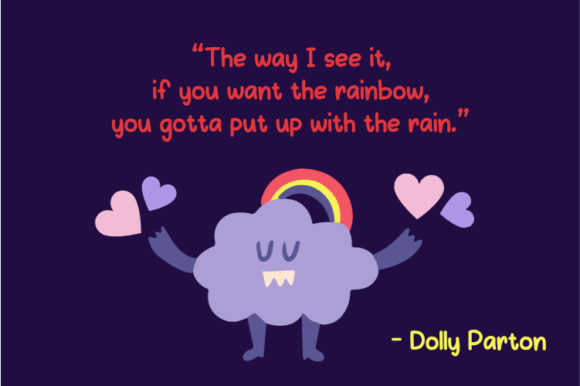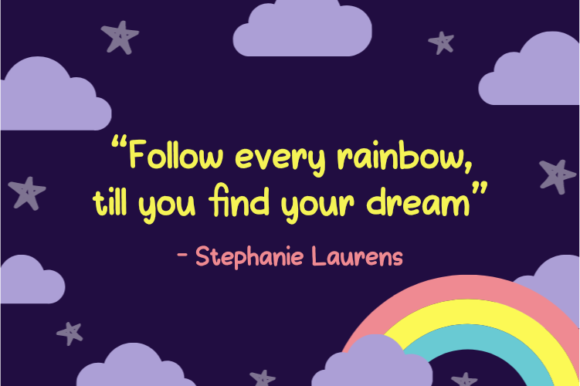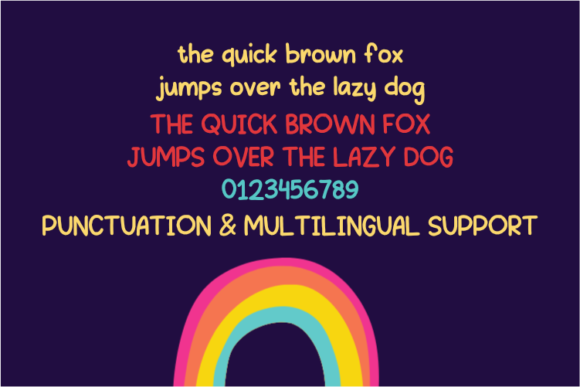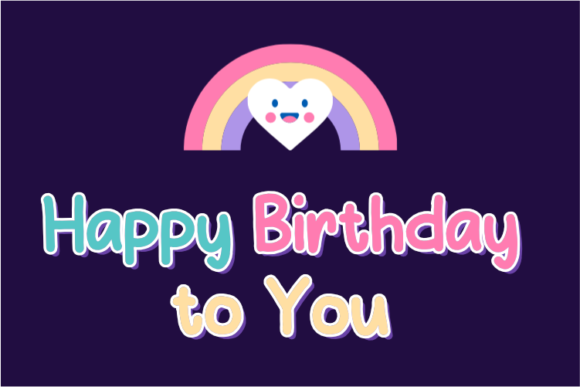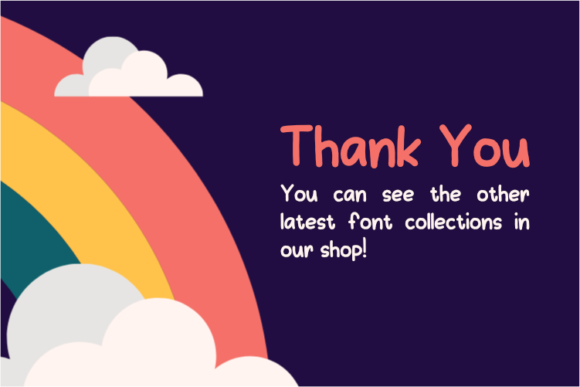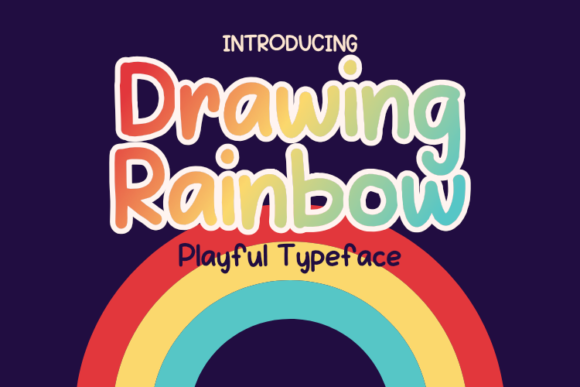
Introducing Drawing Rainbow: A Vibrant and Playful Display Font
Are you looking for a font that can add a splash of fun and joy to your designs? Look no further than Drawing Rainbow, a delightful display font that’s perfect for children’s themed projects. This charming font is sure to bring a smile to your audience’s faces, especially when paired with bright, bold colors.
What is Drawing Rainbow Font?
Drawing Rainbow is a unique and creative font that’s designed to evoke the whimsy and playfulness of childhood. With its bold, colorful letters, this font is ideal for designers and crafters who want to add a touch of magic to their work. Whether you’re creating a children’s book, a nursery decoration, or a fun craft project, Drawing Rainbow is the perfect choice.
Key Features of Drawing Rainbow Font
- Fun and playful design: Drawing Rainbow features bold, colorful letters that are sure to capture your audience’s attention.
- Perfect for children’s themed designs: This font is specifically designed for projects that require a playful and youthful touch.
- Works well with bright colors: Drawing Rainbow looks amazing when paired with bright, bold colors that match its playful personality.
- Easily readable: Despite its playful design, Drawing Rainbow is easy to read, making it perfect for titles, headings, and short paragraphs.
Use Cases for Drawing Rainbow Font
Drawing Rainbow is a versatile font that can be used in a variety of projects, including:
- Children’s books and storybooks: Add a touch of whimsy to your storybook with Drawing Rainbow, perfect for titles, headings, and character dialogue.
- Nursery decorations and wall art: Create a fun and playful nursery with Drawing Rainbow, ideal for wall art, decals, and nursery decor.
- Craft projects and DIY tutorials: Add a personal touch to your craft projects with Drawing Rainbow, perfect for titles, labels, and instructional text.
- Party invitations and decorations: Make your party invitations and decorations stand out with Drawing Rainbow, ideal for kids’ birthday parties and celebrations.
Tips for Using Drawing Rainbow Font
To get the most out of Drawing Rainbow, here are some tips to keep in mind:
- Pair with bright colors: Drawing Rainbow looks amazing when paired with bright, bold colors that match its playful personality.
- Use for titles and headings: This font is perfect for titles, headings, and short paragraphs, making it ideal for adding visual interest to your designs.
- Experiment with font sizes: Try using Drawing Rainbow in different font sizes to create visual hierarchy and add emphasis to your text.
- Combine with other fonts: Consider combining Drawing Rainbow with other fonts to create a unique and visually appealing design.
Drawing Rainbow is a fun and joyful display font that’s perfect for children’s themed designs. With its bold, colorful letters and playful personality, this font is sure to bring a smile to your audience’s faces. Whether you’re a designer, crafter, or DIY enthusiast, Drawing Rainbow is a great addition to your font collection.